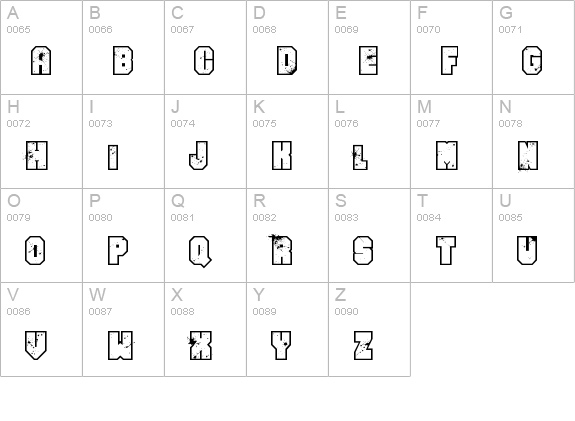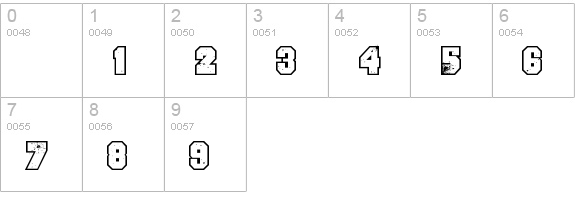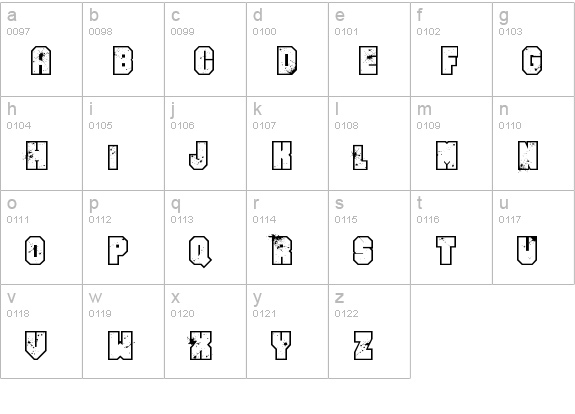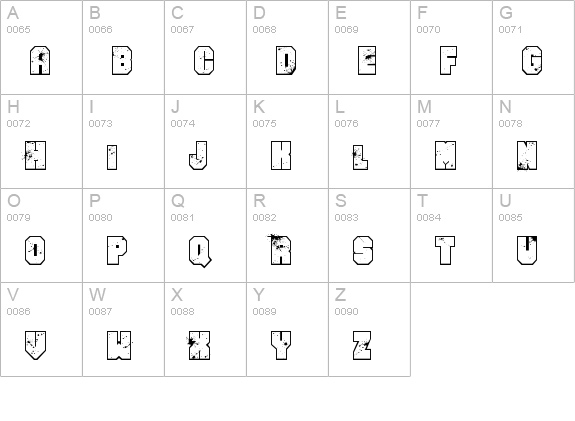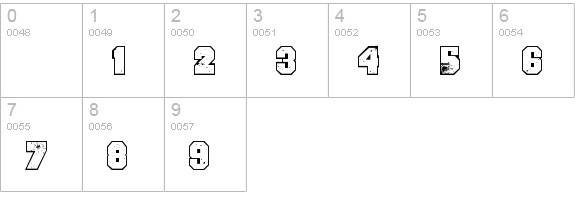
Even Badder Mofo Font Details
Even Badder Mofo font is a bold and edgy typeface that exudes a rebellious and unconventional vibe. With its sharp angles and aggressive design, this font is perfect for making a statement in your design projects. Whether you're creating posters, album covers, or branding materials, Even Badder Mofo will add a touch of attitude and flair. The best part? Even Badder Mofo is available for free download at FontsMarket.com. You can easily add this striking font to your collection without breaking the bank. So go ahead and unleash your creativity with Even Badder Mofo font - the perfect choice for those who dare to be different.